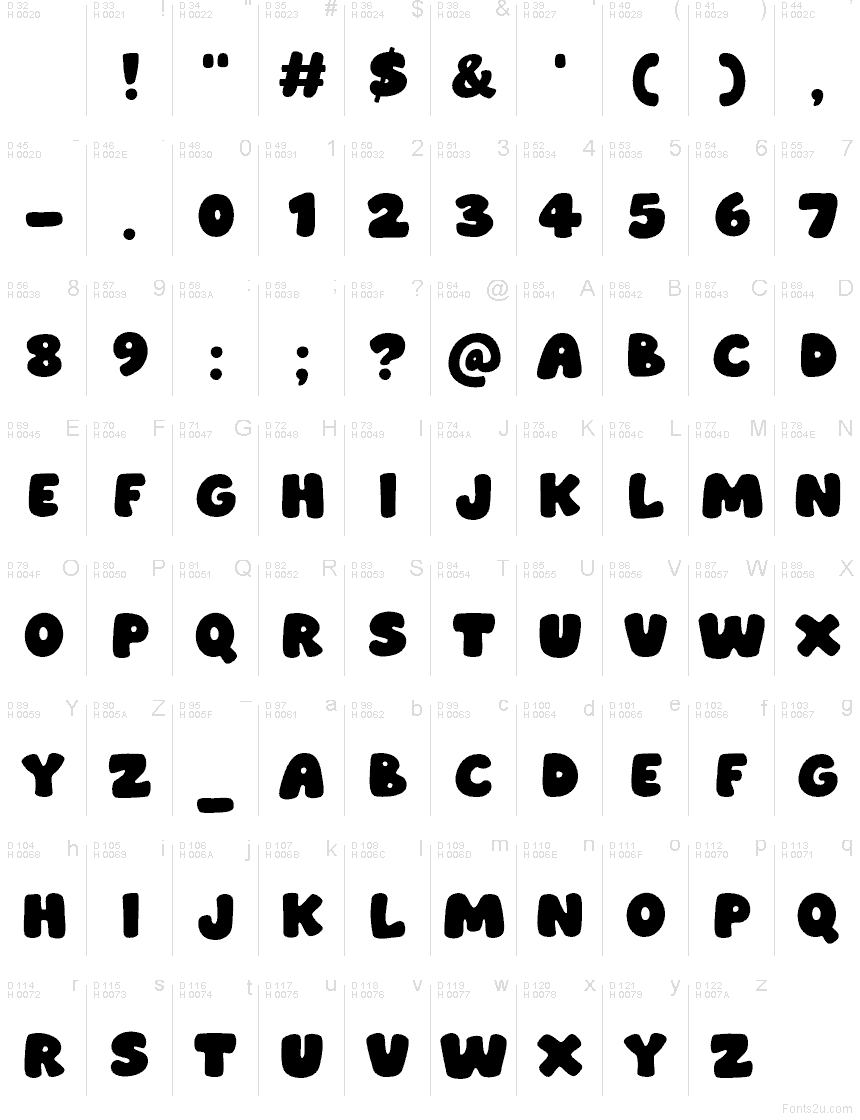
Burger Queen
Burger Queen font by MJType is a free cartoon display typeface with letters that feel puffed-up, squishy, and ready to bite into. Thick, rounded forms and tight, bouncy spacing give every word the energy of a snack logo or a Saturday-morning cartoon title. The inky, almost hand-doodled edges keep it fun and friendly, so your message comes across loud, bold, and instantly approachable.
Using Burger Queen, this free font shines on kids’ menus, food truck branding, snack packaging, playful logos, party invitations, and game or app titles. Its chunky shapes hold up at large sizes where you want impact and personality in just a few words. Pair it with a simple, clean sans serif for body text to keep the headline’s bubbly charm in the spotlight.